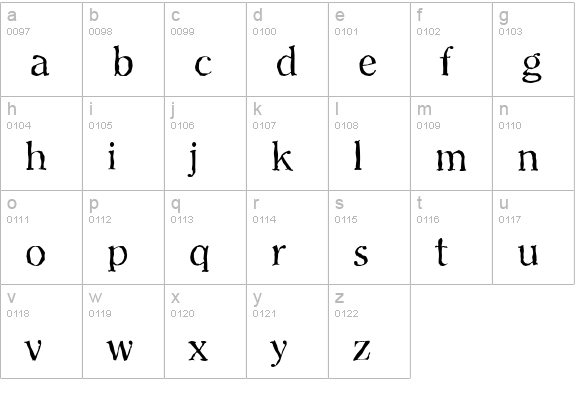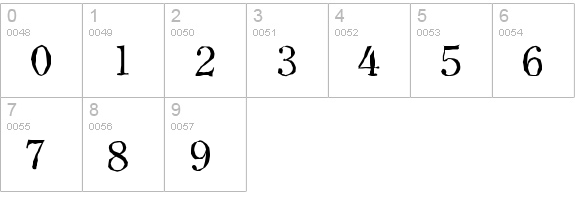
ClearfaceAntique-Regular Font Details
ClearfaceAntique-Regular is the standard, neutral variant in the ClearfaceAntique typeface family \xE2\x80\x94 well suited to general body text, paragraphs, and standard typographic work.
ClearfaceAntique-Regular is a timeless and elegant font that exudes sophistication and class. With its clean lines and classic serif style, this typeface is perfect for creating refined designs that make a lasting impression. Whether you are working on a formal invitation, a professional document, or a stylish logo, ClearfaceAntique-Regular will elevate your project to the next level. The best part? ClearfaceAntique-Regular is available for free download at FontsMarket.com. Now you can enjoy the beauty and versatility of this stunning font without breaking the bank. Don't miss out on this amazing opportunity to enhance your designs with ClearfaceAntique-Regular - download it today and let your creativity shine!